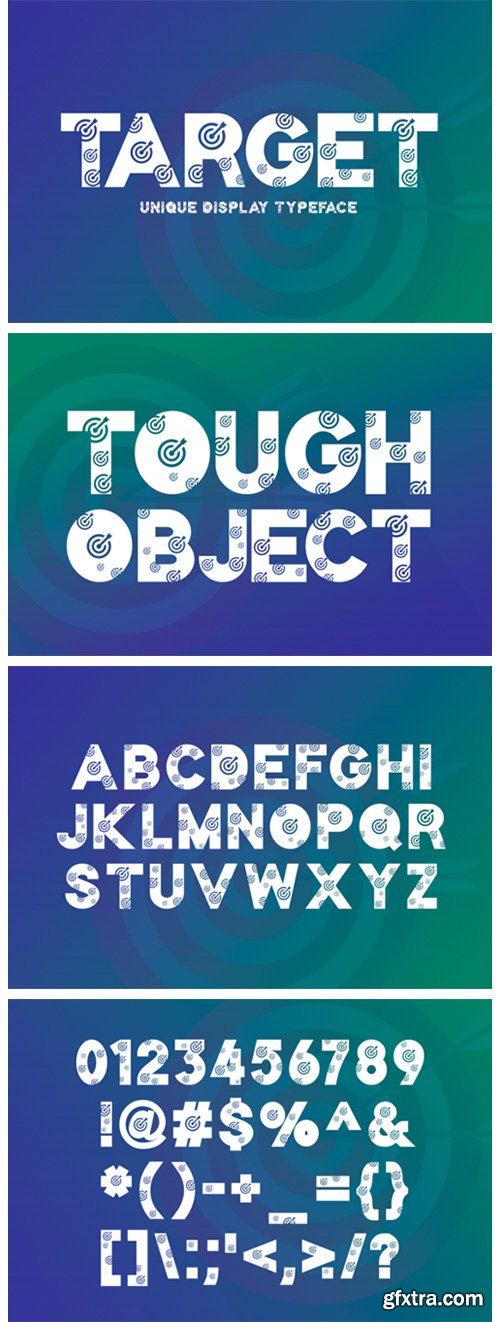
Target Font
Target is a bold, chunky lettered, yet unique display font. Masterfully designed to become a true favorite, this font has the potential to bring each of your creative ideas to the highest level!